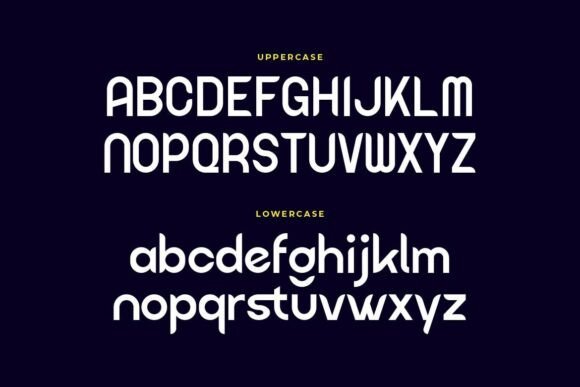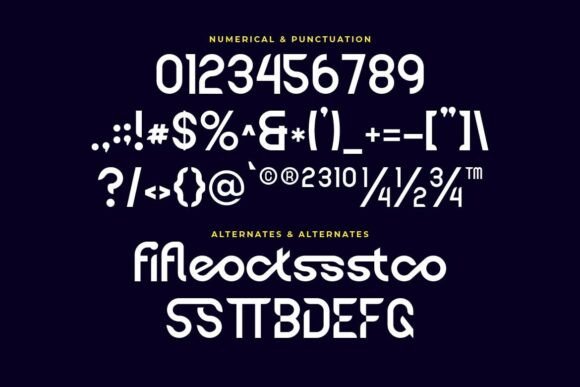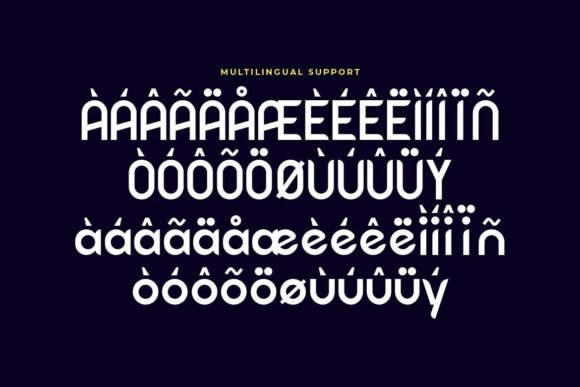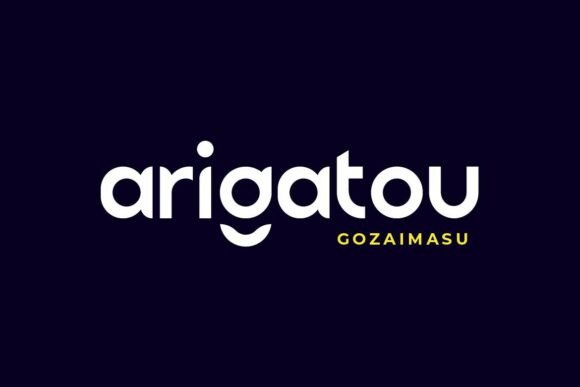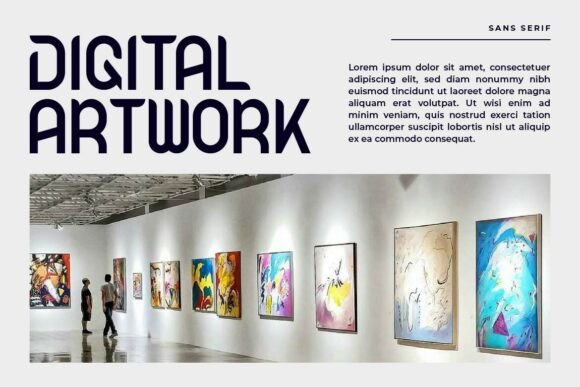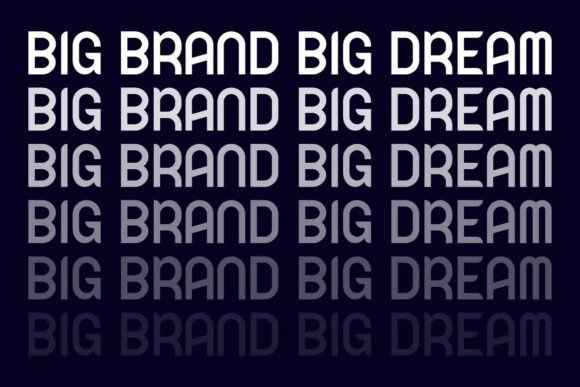
The Power of Minimalism: Unlocking the Potential of the Golco Font
Enter the Golco Font, a sleek and sophisticated sans serif font designed to elevate your design work. With its geometric structure and contemporary styling, Golco is the perfect choice for branding, packaging, editorial headers, web interfaces, and social media graphics. Whether you’re a seasoned pro or just starting out, the Golco Font is a valuable addition to your design toolkit.
Golco Font Key Features
- Font Family: Golco Font is a sans-serif font family designed for modern typography.
- Unique Characteristics: The font features a unique blend of modern and minimalist design elements, making it perfect for contemporary branding and design projects.
Golco Font Review
I’ve had the chance to work with the Golco font, and I must say, it’s a unique and intriguing addition to any design project. ✨ The font’s modern aesthetic and geometric shapes make it perfect for creating a sleek and contemporary look. I particularly appreciate its versatility, as it can be used for a wide range of applications, from digital interfaces to print materials.
- ✨ The font’s clean and minimalist design makes it easy to read and understand.
- ✨ Golco’s geometric shapes add a touch of sophistication and elegance to any design.
- ✨ The font is highly customizable, allowing designers to tailor it to their specific needs.
However, as with any font, there are some limitations to consider. ⚠️ The font’s bold and condensed styles can sometimes feel a bit too condensed, making it difficult to read in certain contexts. Additionally, the font’s lack of italics may limit its use in certain situations, such as in academic or formal writing.
Overall, I think Golco is a solid choice for designers looking for a modern and versatile font. While it may have some limitations, its strengths make it a valuable addition to any design project.
The Golco font is ideal for modern designs, such as:
- Business cards and brochures.
- Website headers and footers.
- Marketing materials and social media graphics.